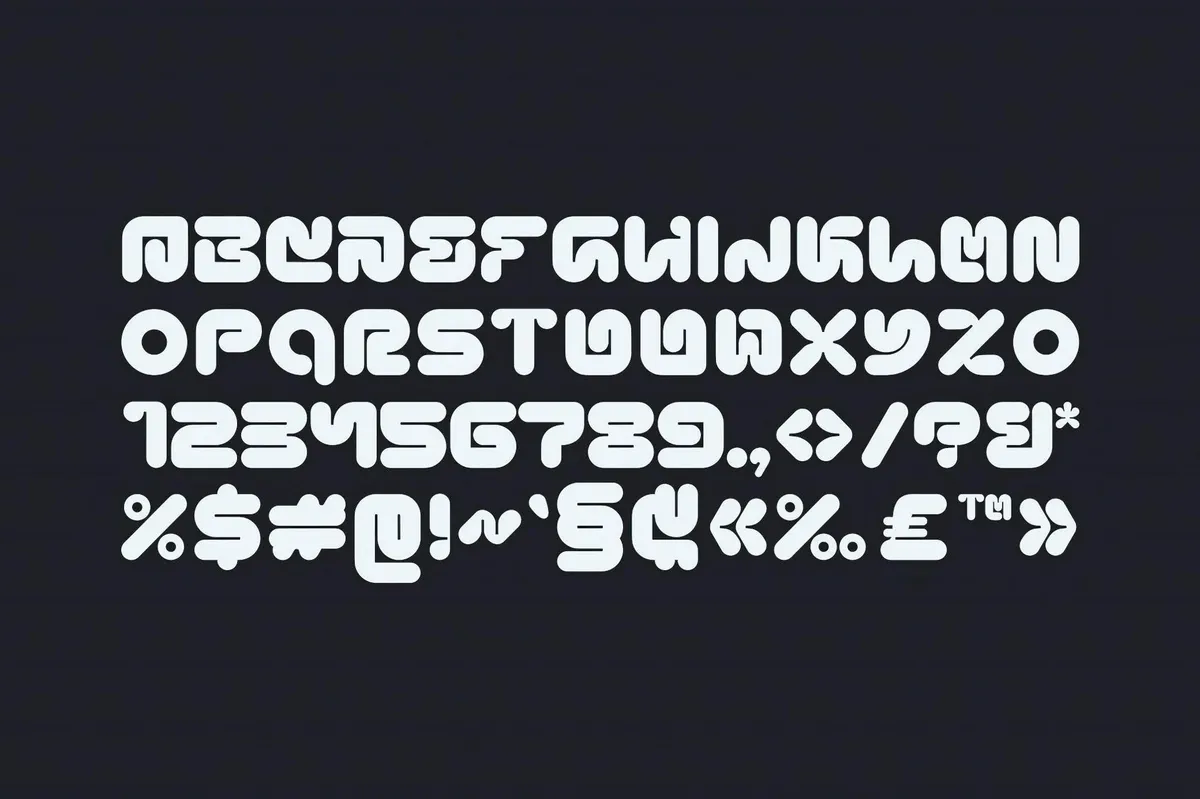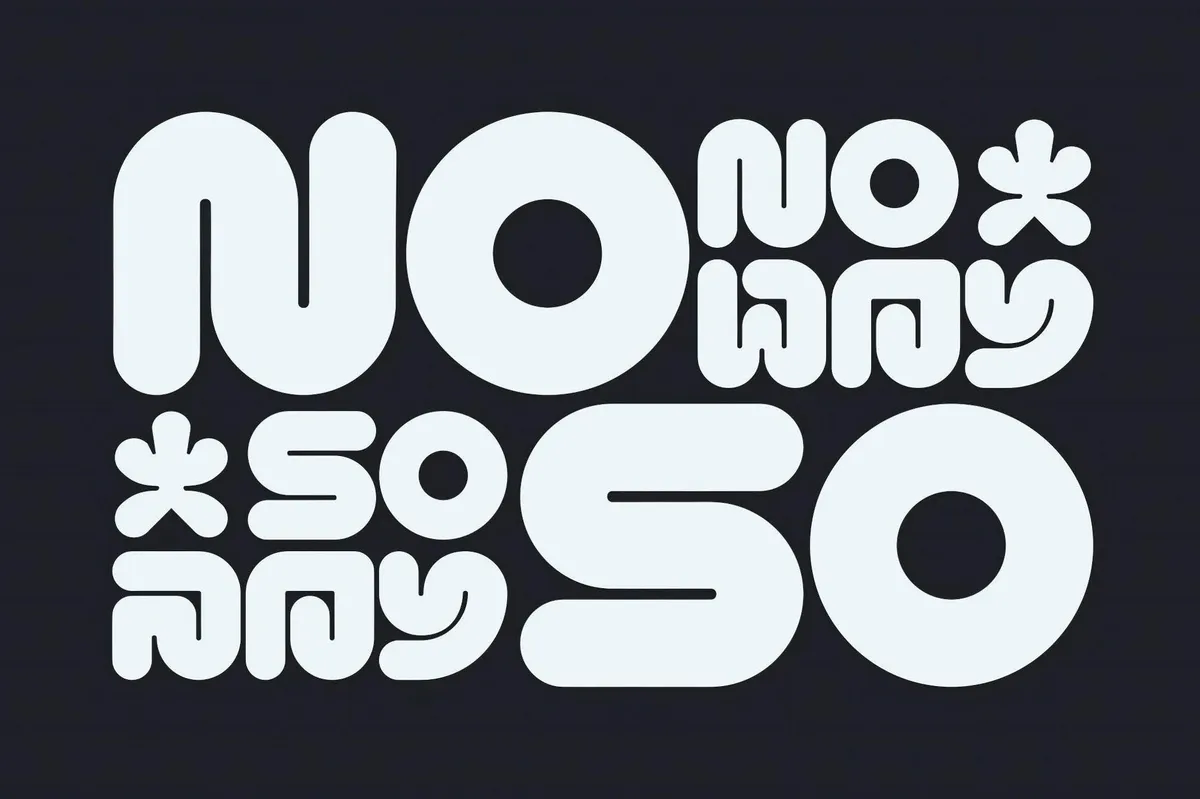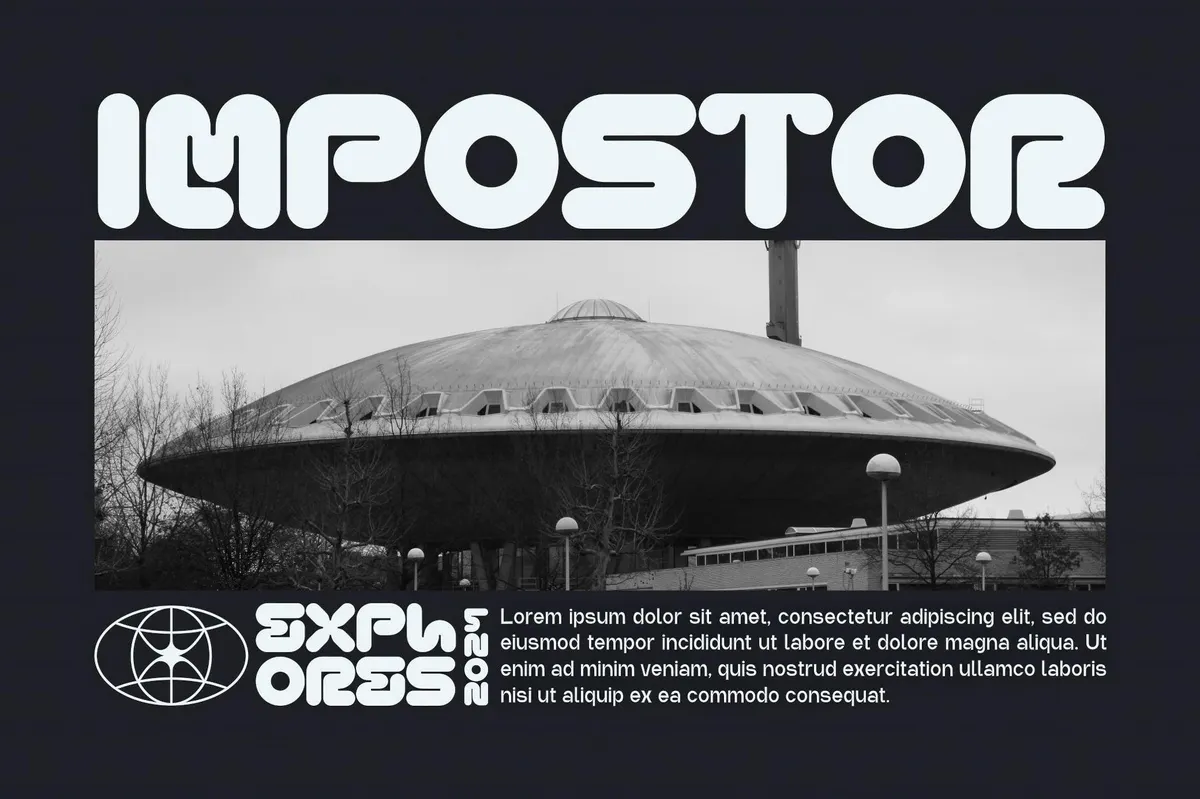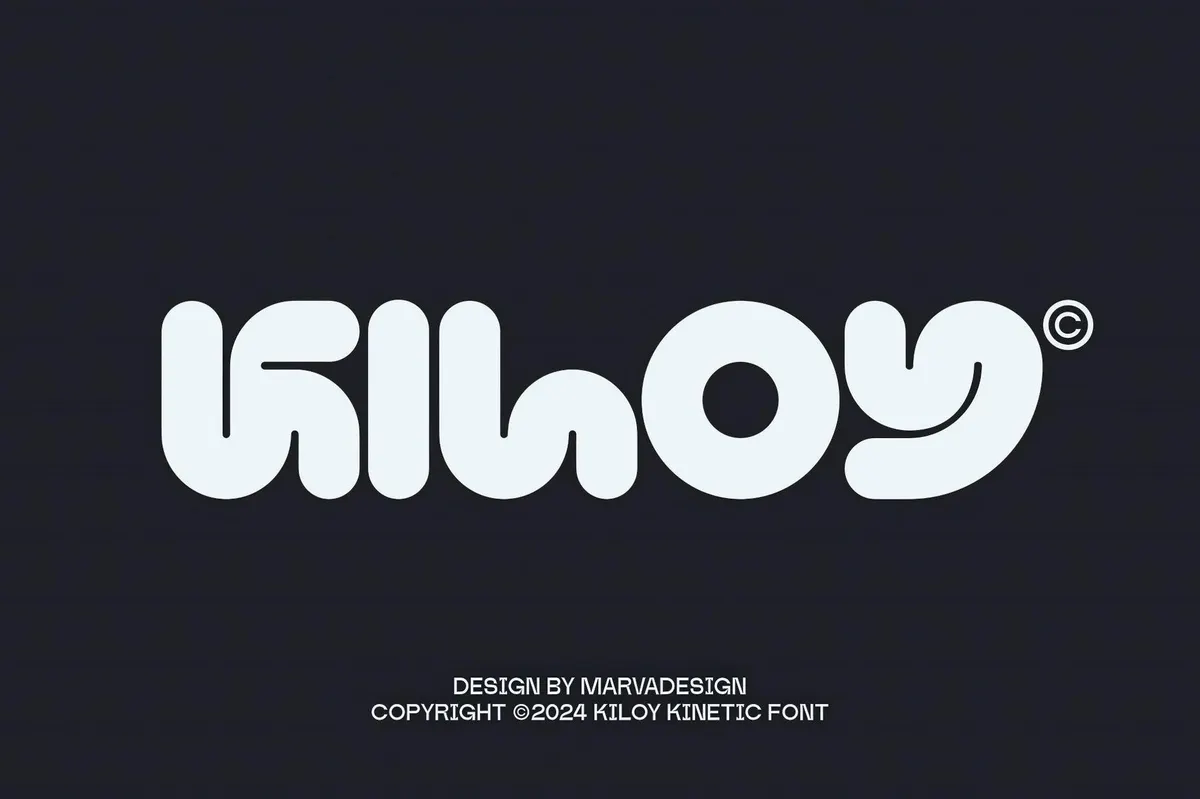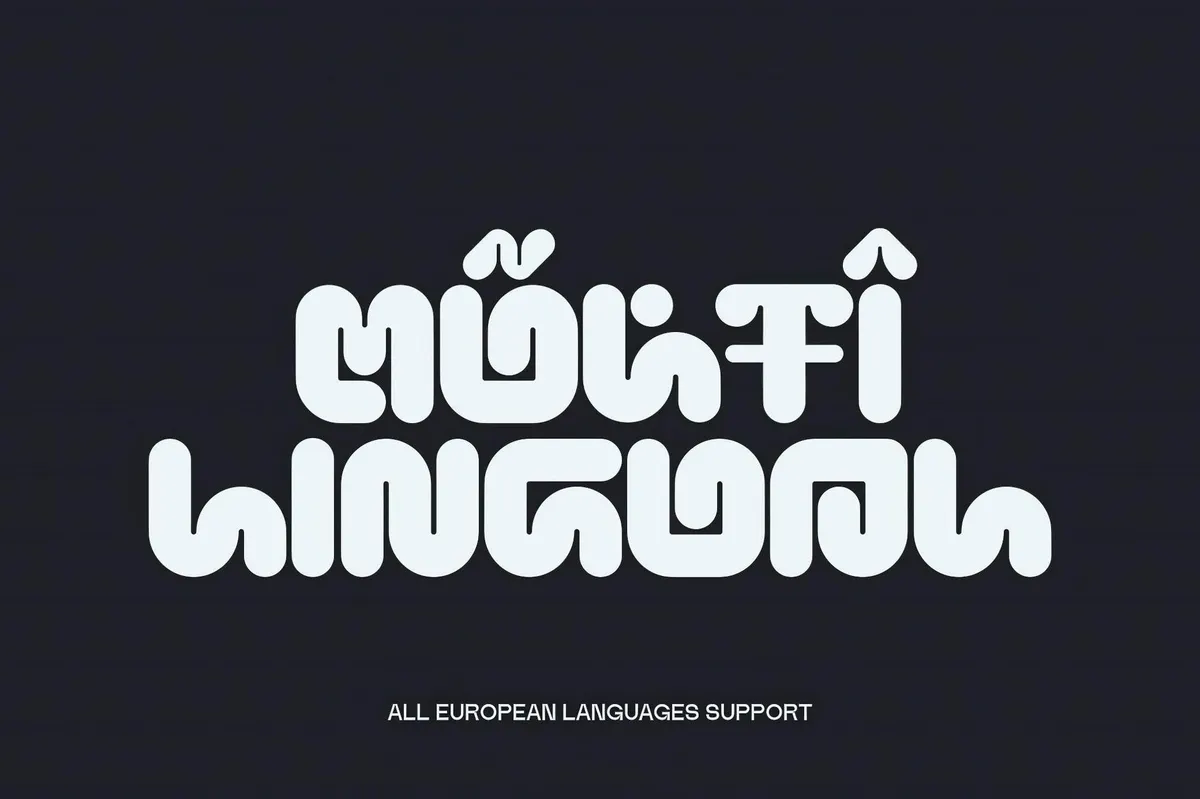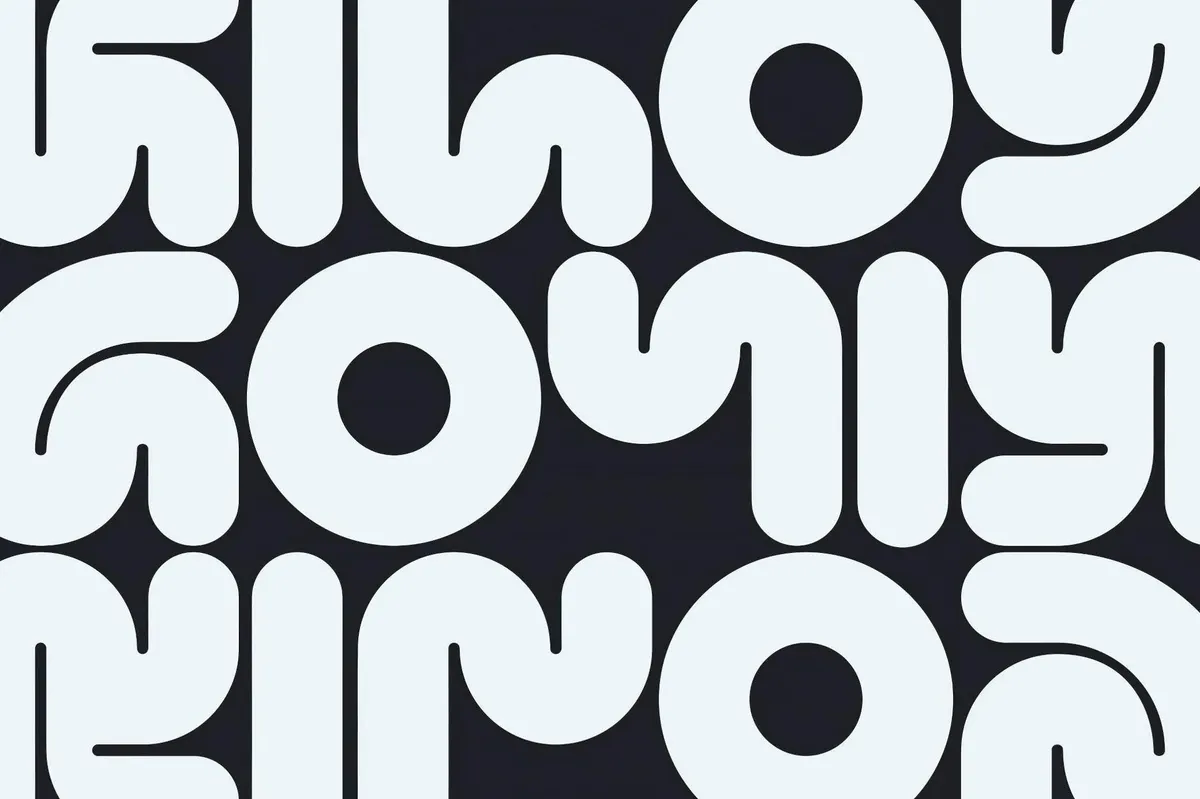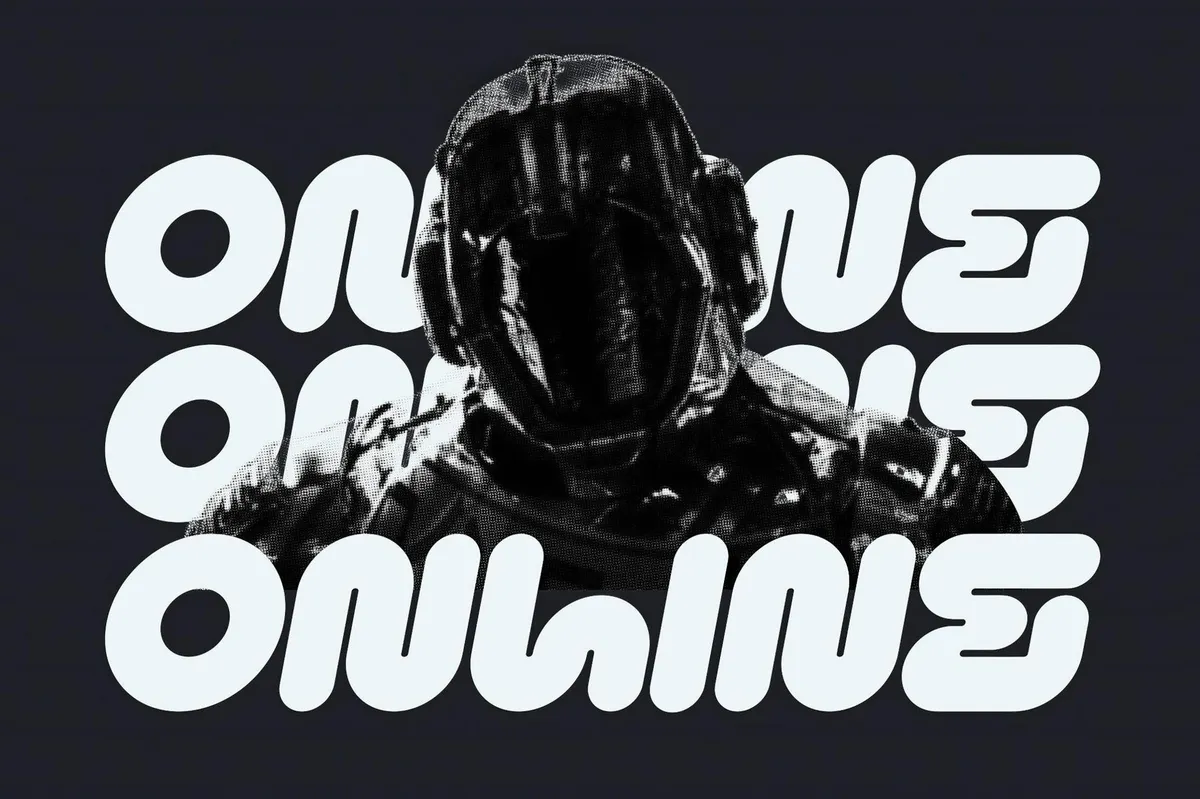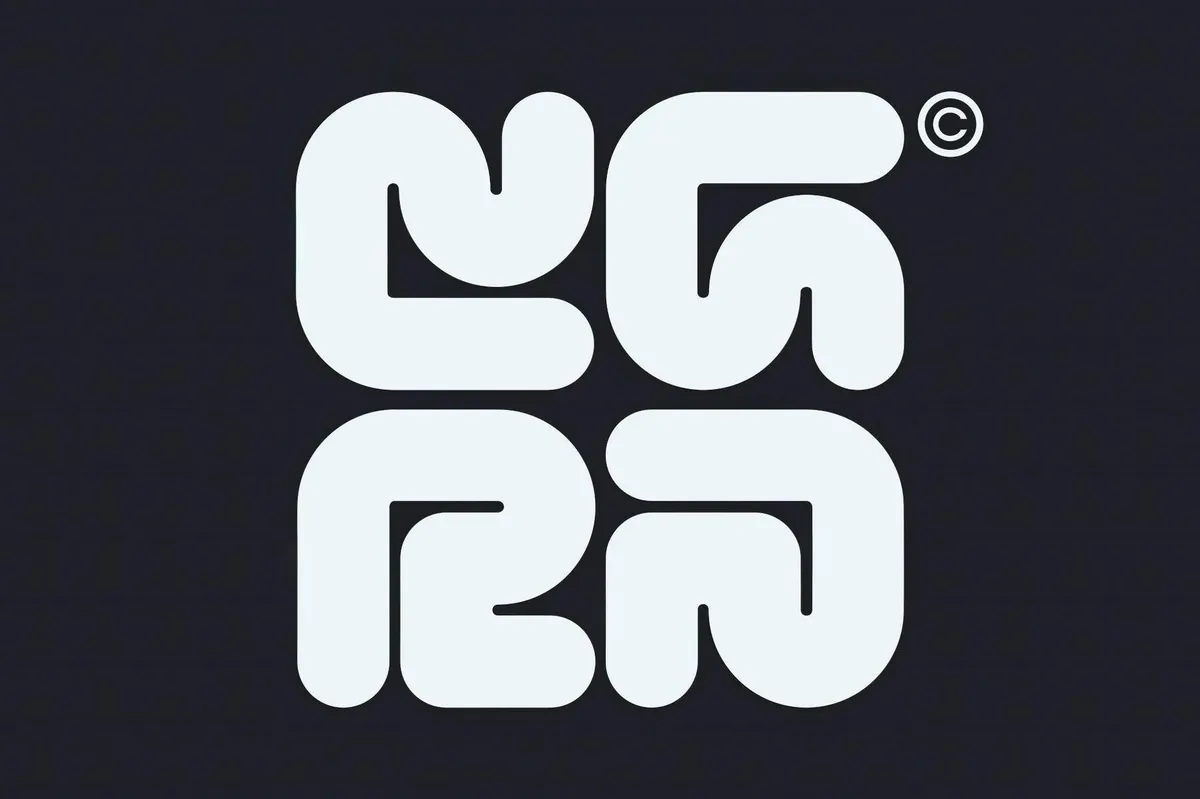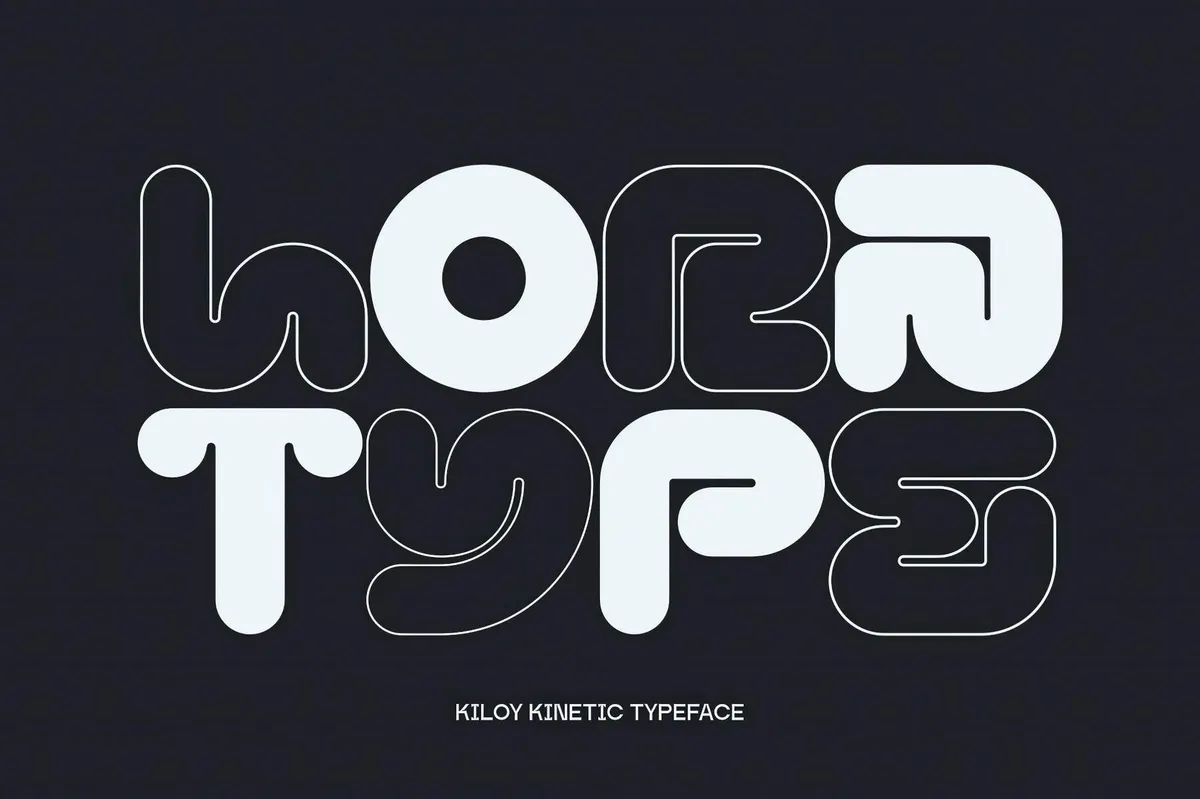
Kiloy — Rounded Techno Font
Kiloy gives the impression of constant motion, with rounded, flowing lines that resemble soft bubbles, creating a sense of smooth kinetics. It's playfulness and simplicity are seamlessly combined, resulting in a gentle visual presence. The font's organic fluidity evokes associations with futuristic design, adding a modern, dynamic touch.
In addition to its dynamic aesthetic, Kiloy boasts remarkable versatility. It is perfect for logos, headlines, modern brands, and futuristic interfaces. Available in Regular and Italic styles, this all-caps font supports multiple formats, also featuring numerals, punctuation, and multilingual characters.